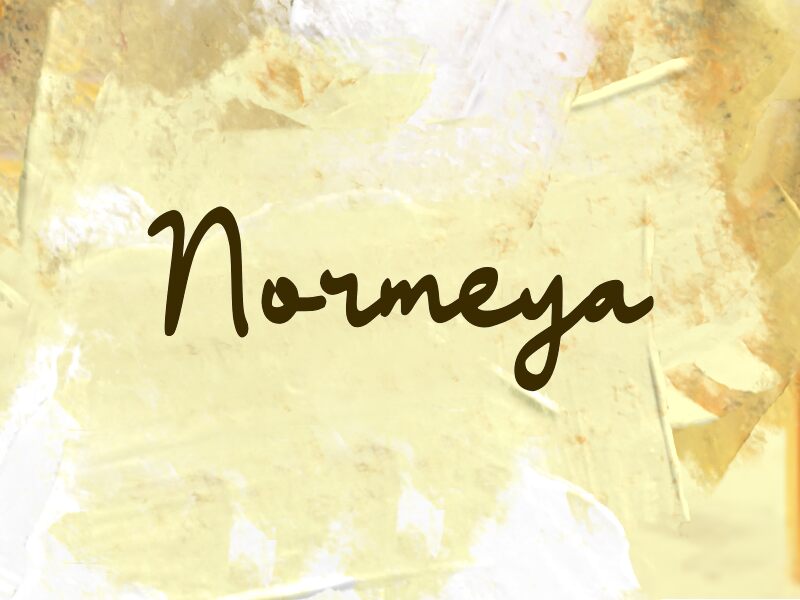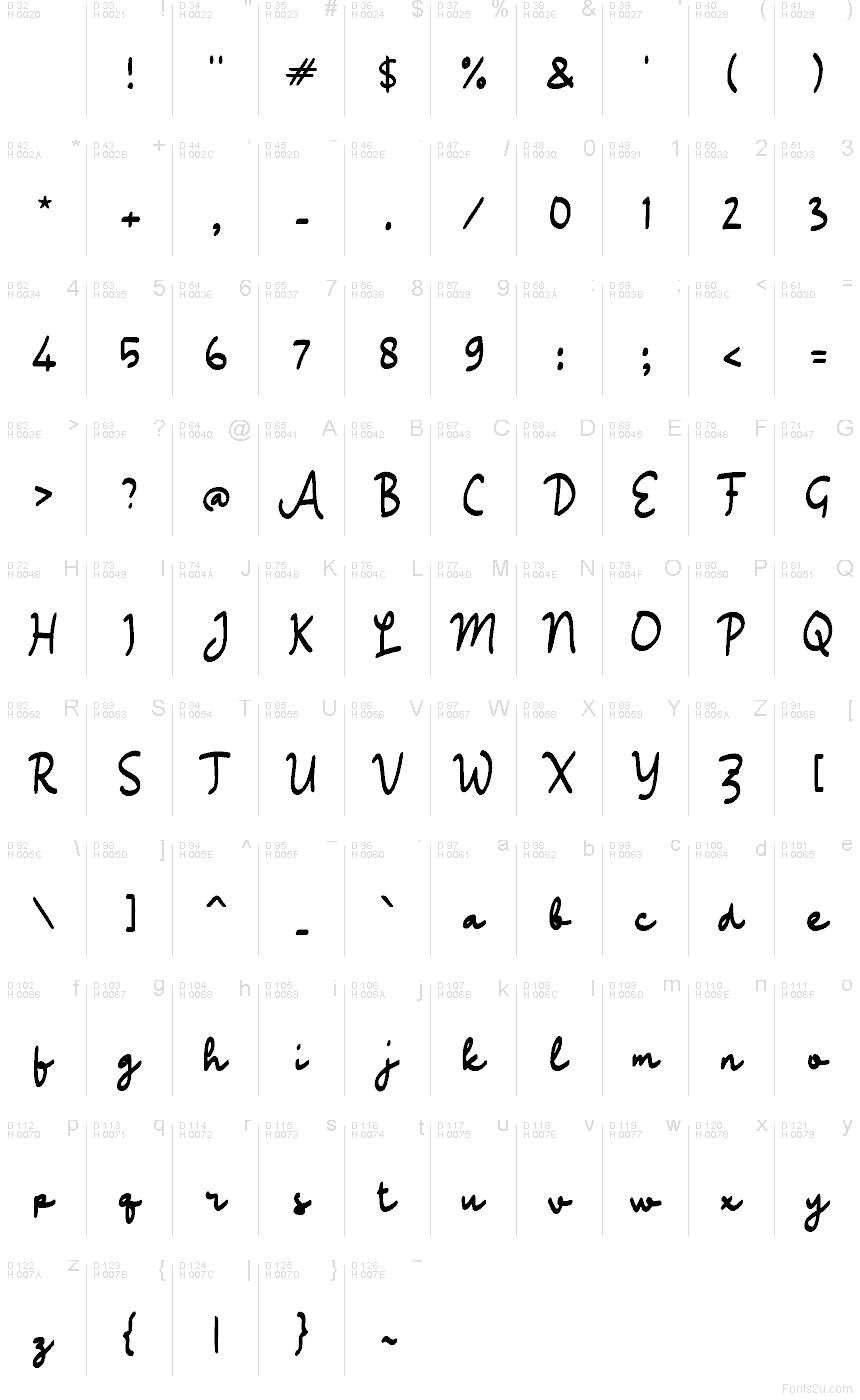
Normeya
Normeya font by wep is a free handwritten typeface that gives you that elusive “real handwriting” look without sacrificing clarity. Its smooth, inky strokes feel like a quick note penned with a favorite marker—loose and personal, yet even enough to read at a glance. The letters connect with an easy rhythm, so your words look spontaneous and human, not stiff or over-polished.
Using Normeya, this free font shines on signature-style logos, social media quotes, casual invitations, product packaging, name tags, and lifestyle blog graphics. The slightly bold line weight holds up well on screens and small printed pieces, making short phrases and names feel warm and approachable. Pair Normeya with a clean sans serif for body text, and let this handwritten script take the spotlight in headings and key accents.